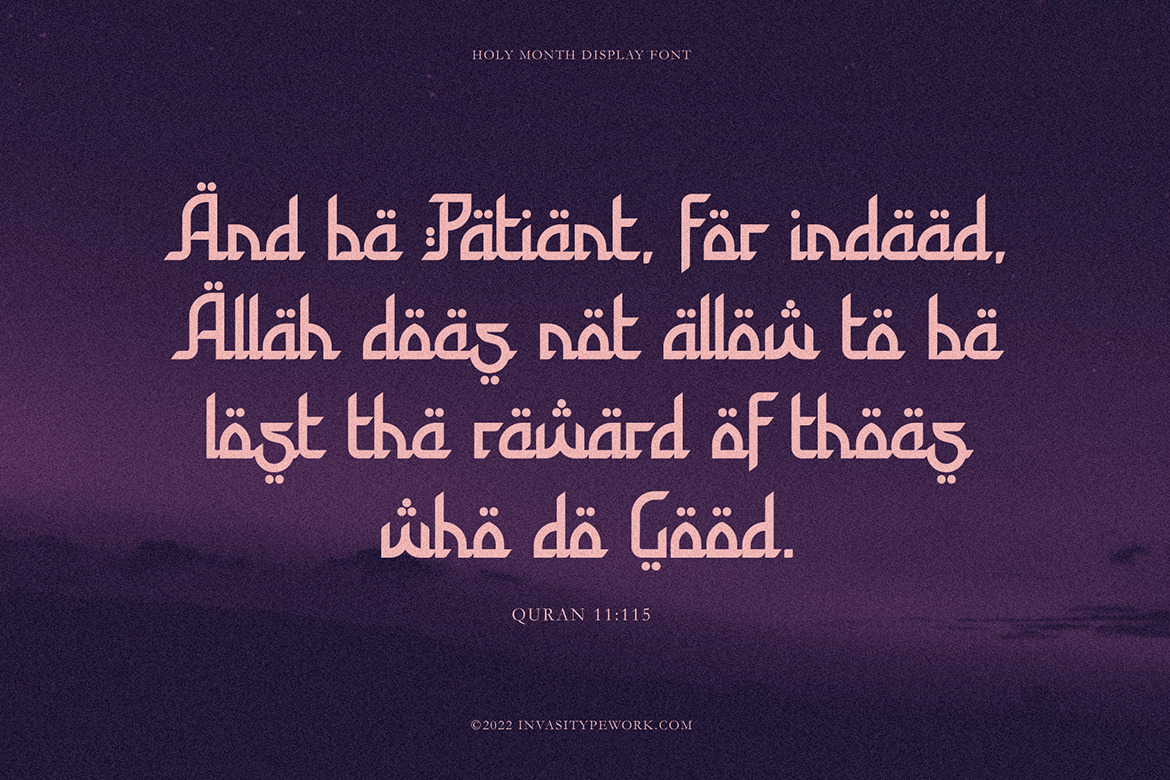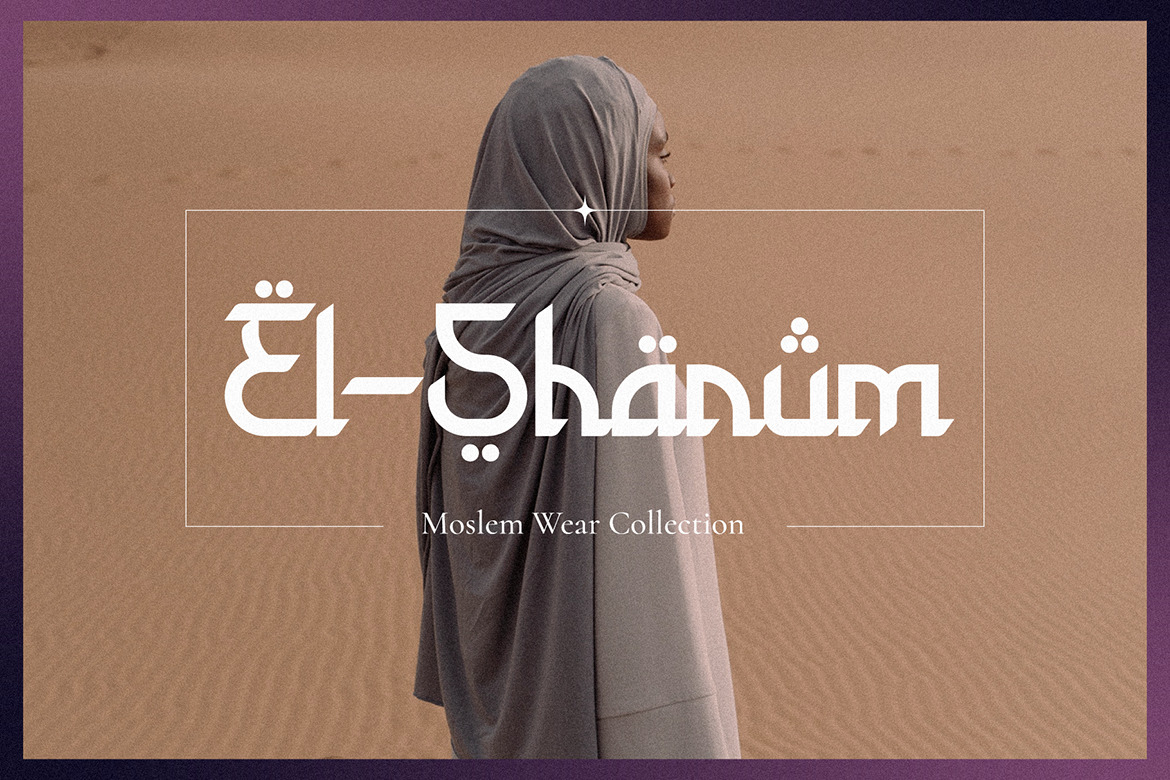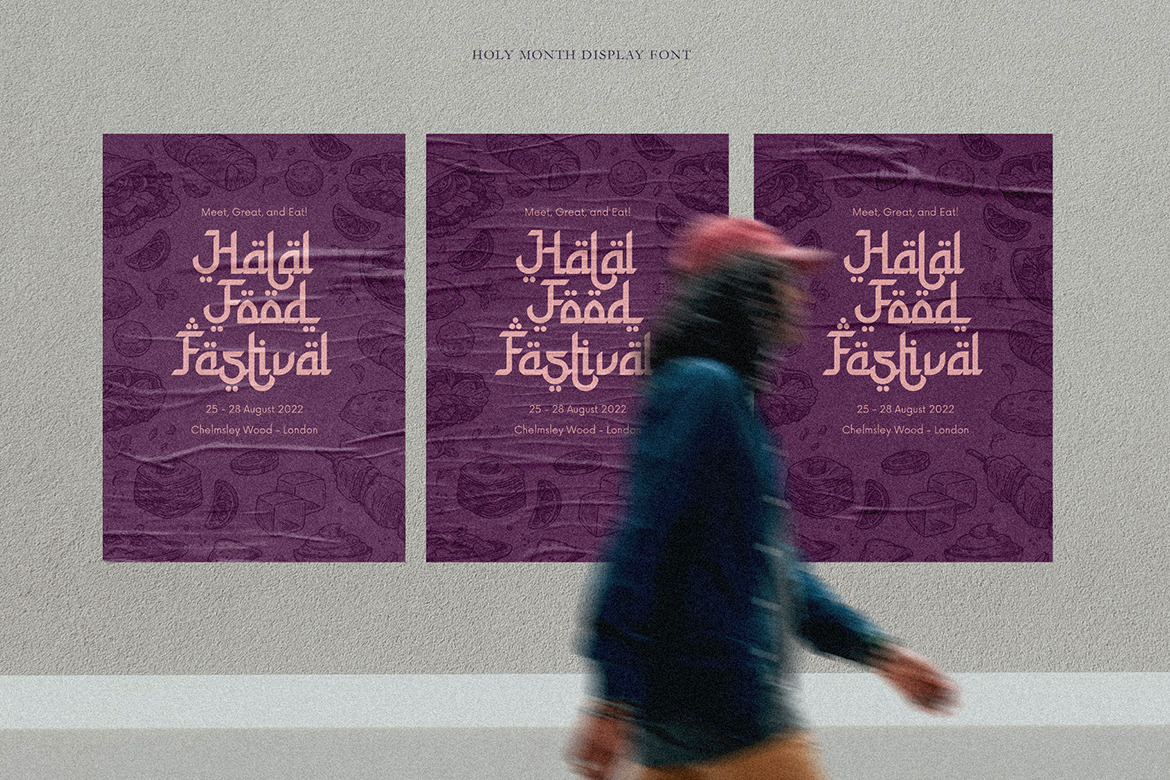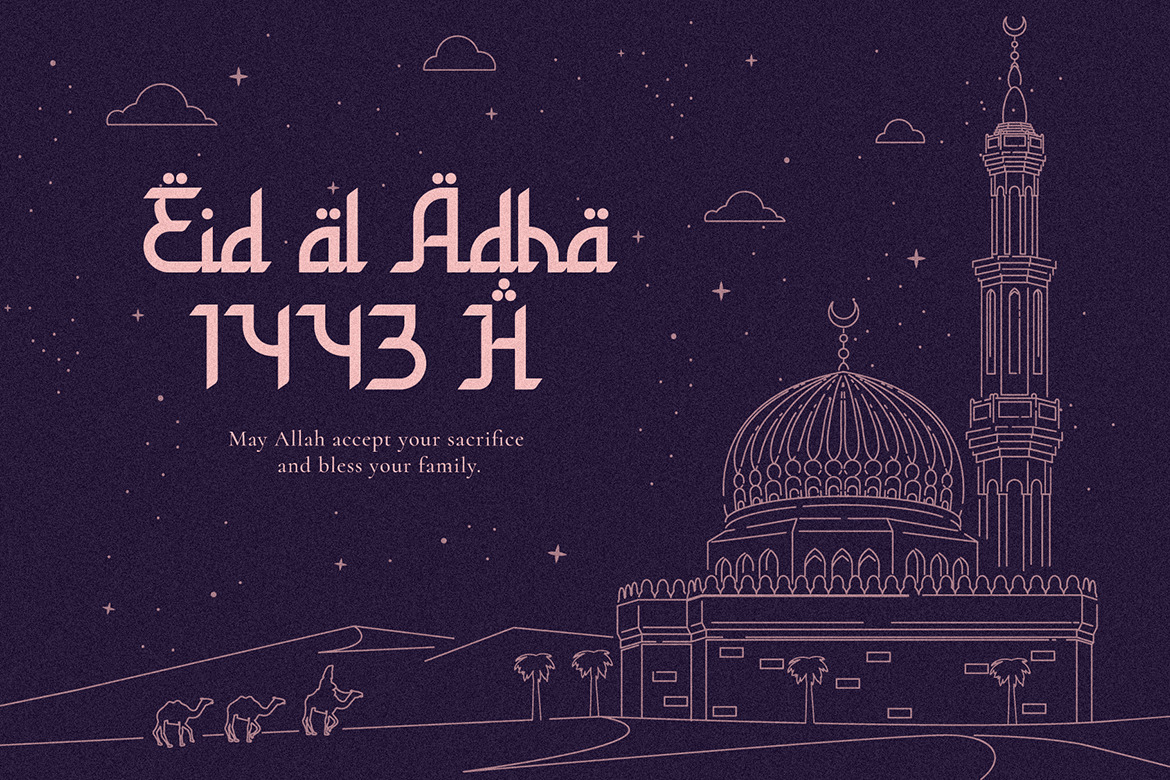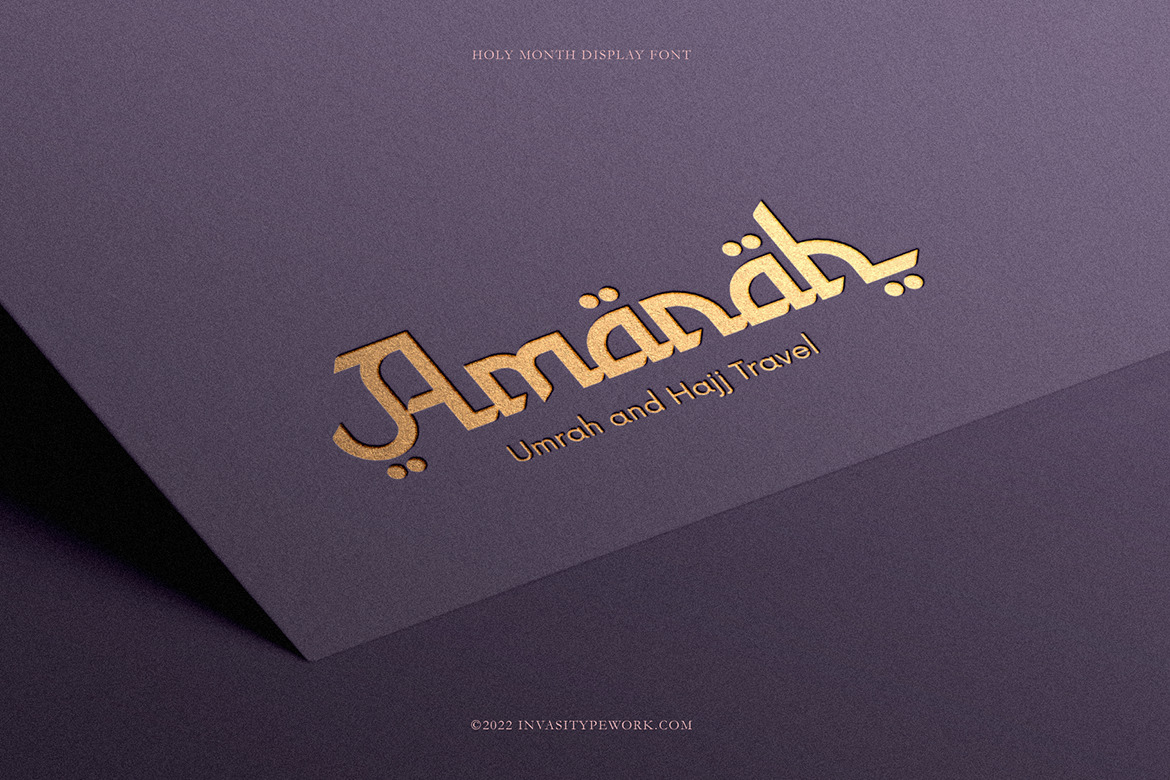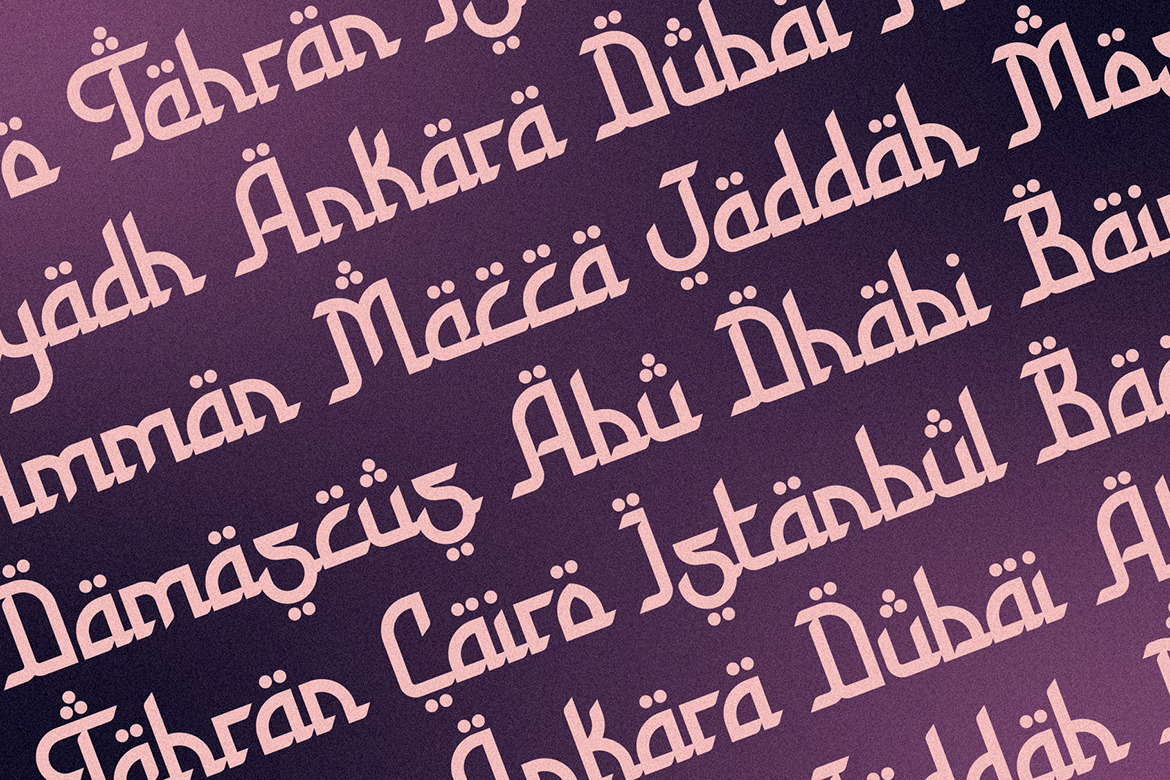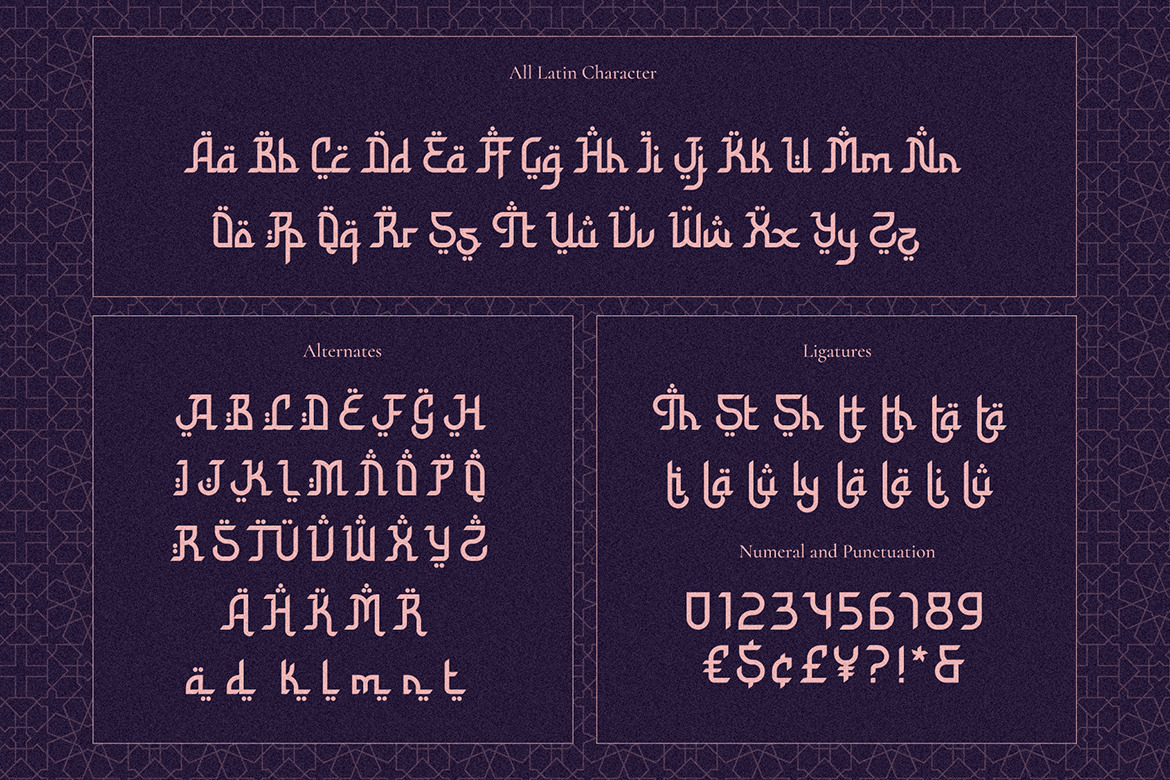
Holy Month - Arabic Display Font
The Holy Month Display Font is inspired by Arabic Manuscript. It is constructed with geomatric glyphs, making the font look modern and suitable for branding, cards, posters, promotions, product packaging, etc. Holy Month comes with ligatures, alternates, and supports 60+ Latin-based languages.
- Total 261 Glyph
- Numerals & Punctuation
- Alternates and Ligatures
- Multilanguage Supports 60+ Latin based languages